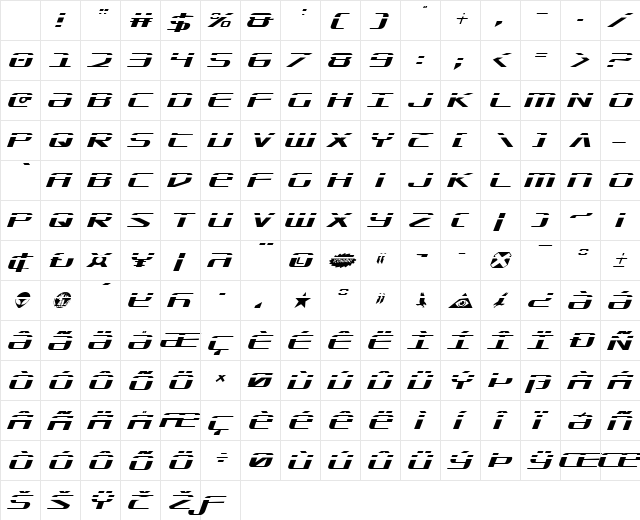
Complete SDF Laser Italic glyph index. Displaying only characters natively supported by SDF Laser Italic font.
SDF Laser Italic is a composed and adaptable typeface that performs quietly and consistently across a wide range of design contexts. The slanted form adds forward momentum and visual energy.